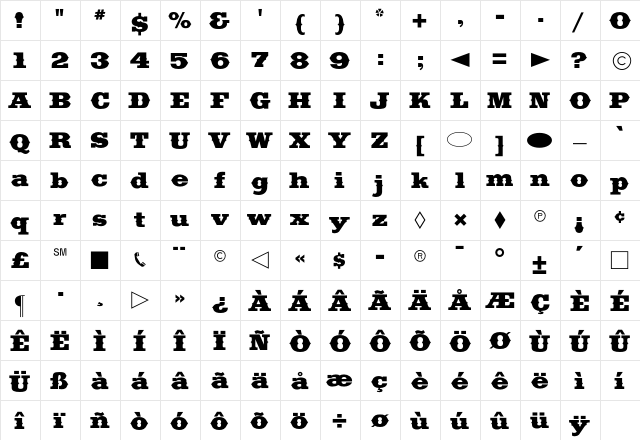
CgDavisonAmericana Regular
Design Context for CgDavisonAmericana Typeface
CgDavisonAmericana takes a measured approach to typography — its balanced proportions and neutral character make it a reliable workhorse for both digital and print work.